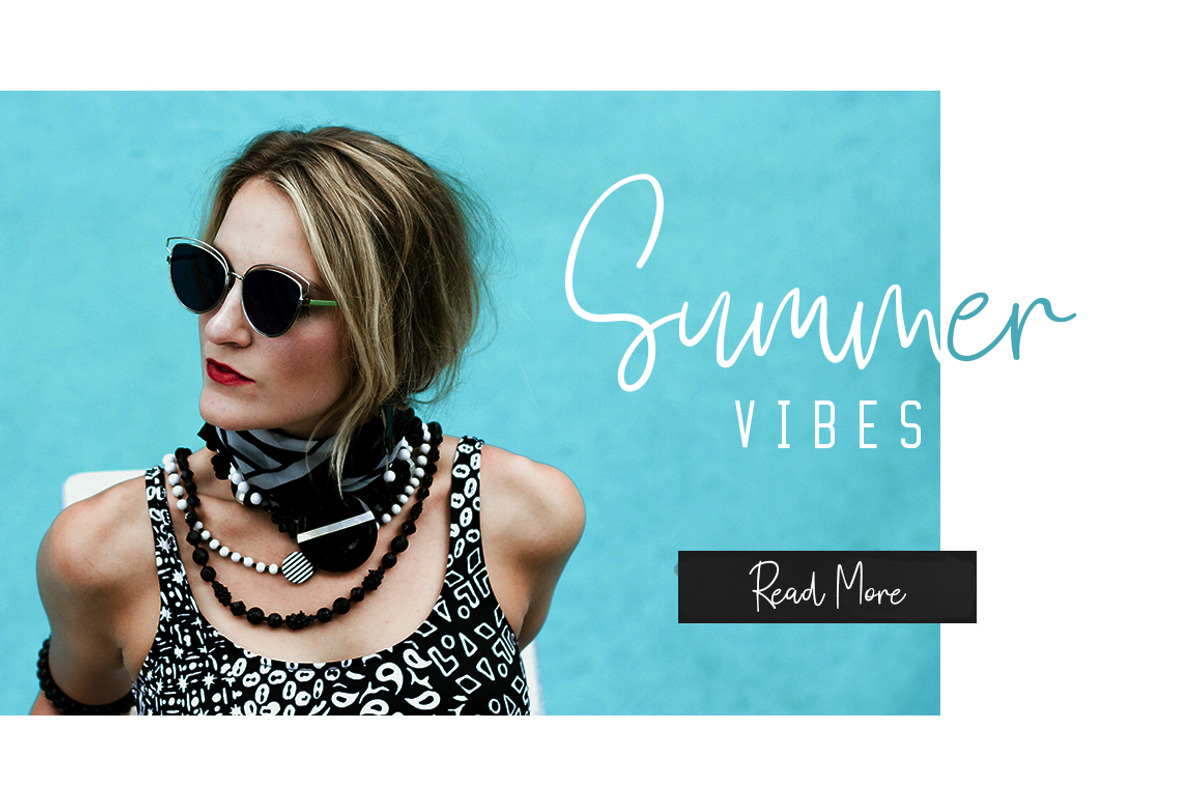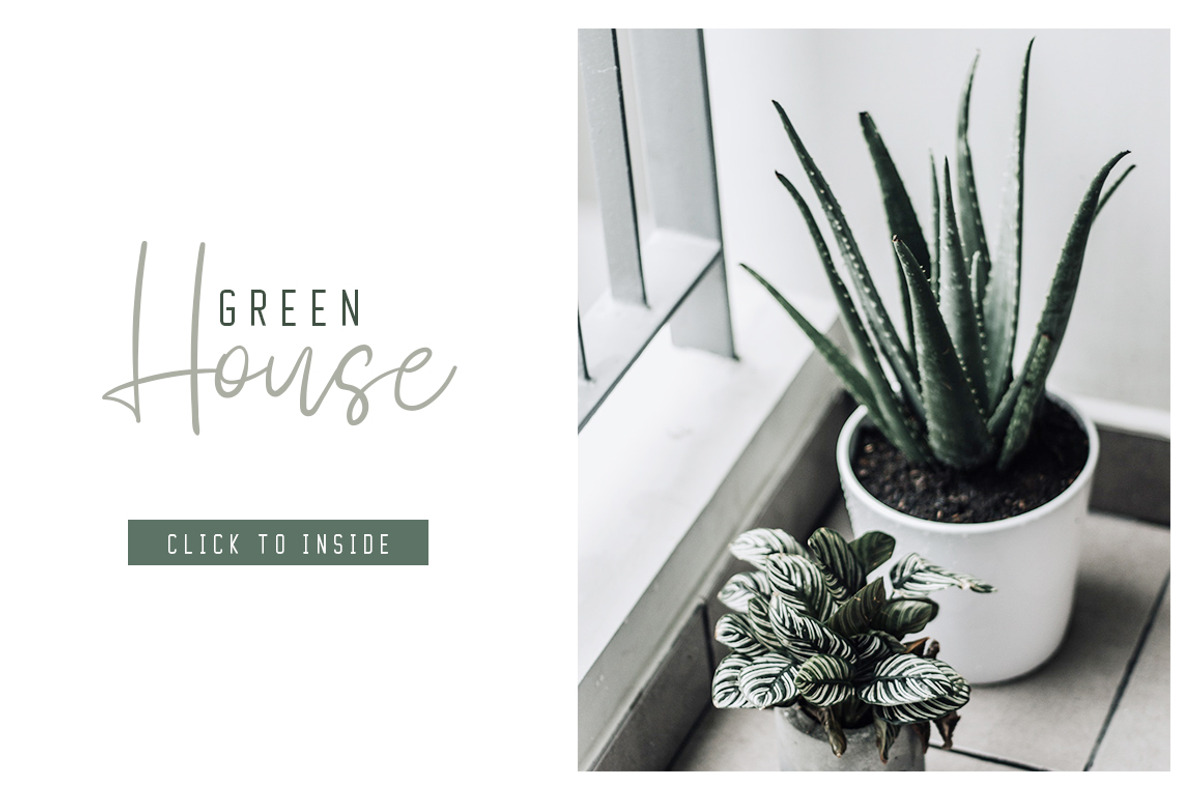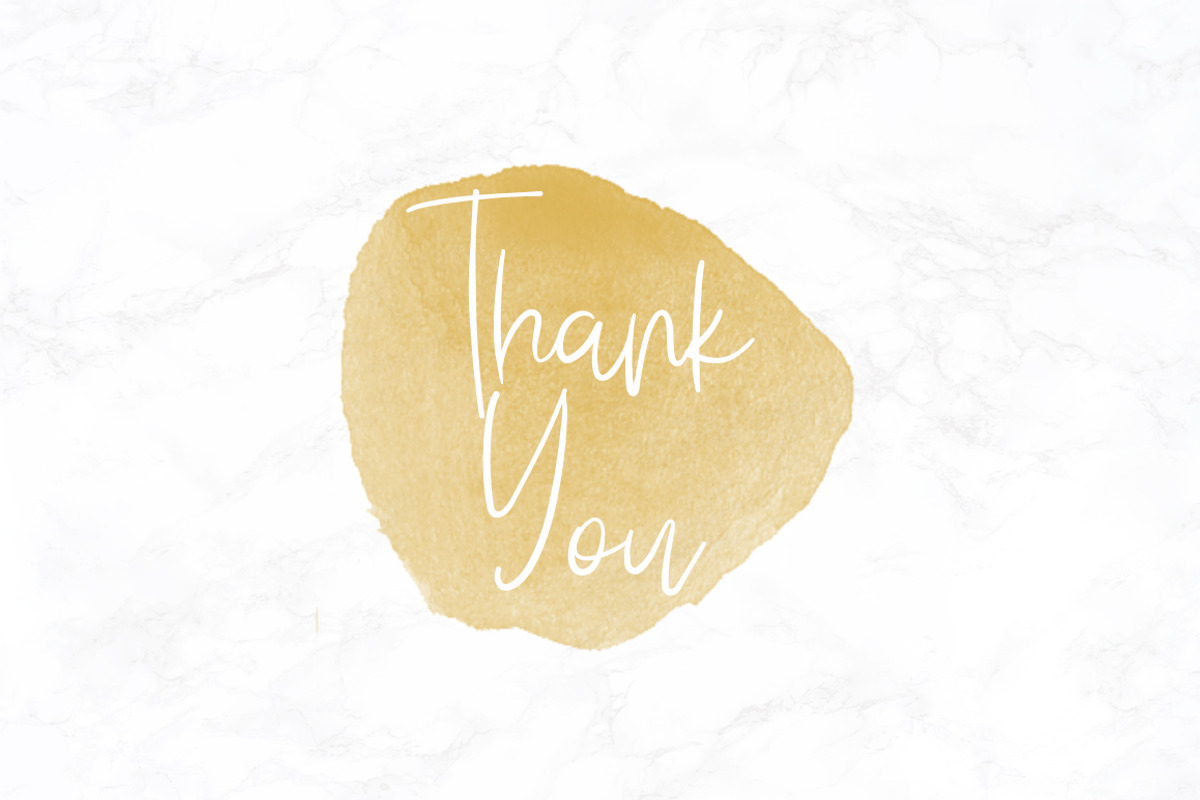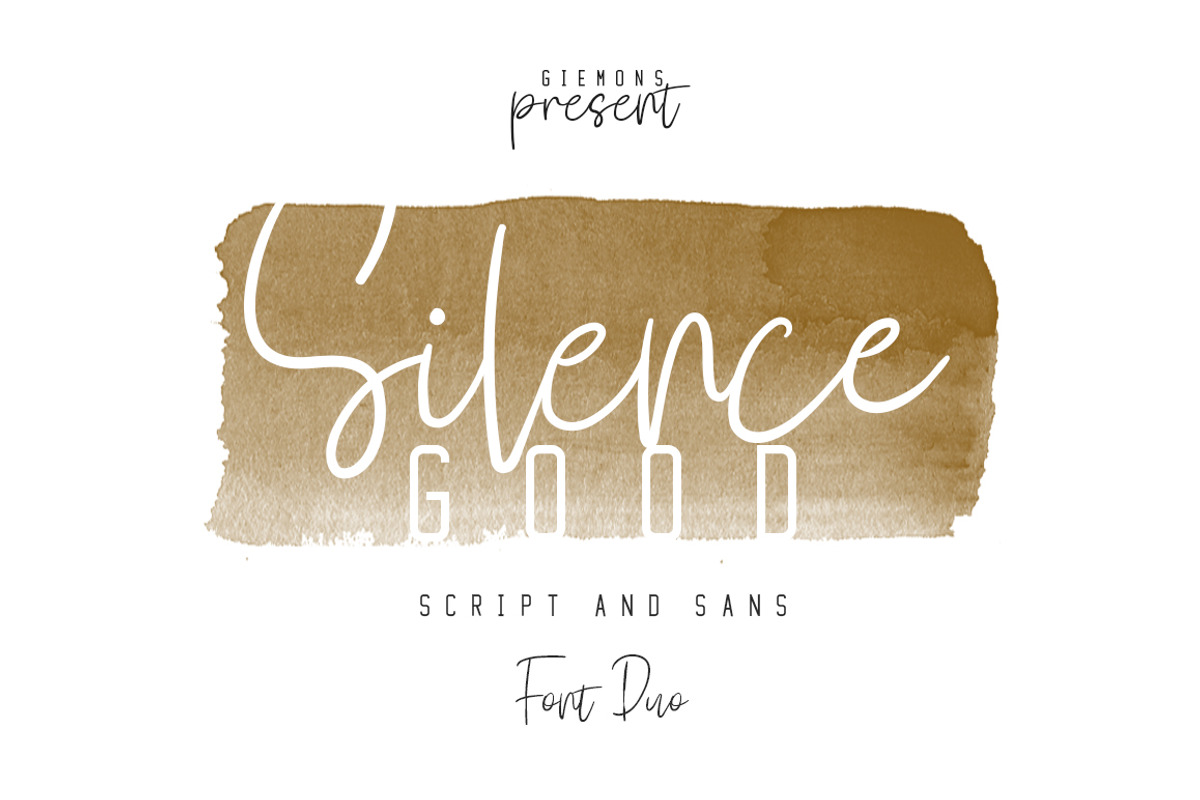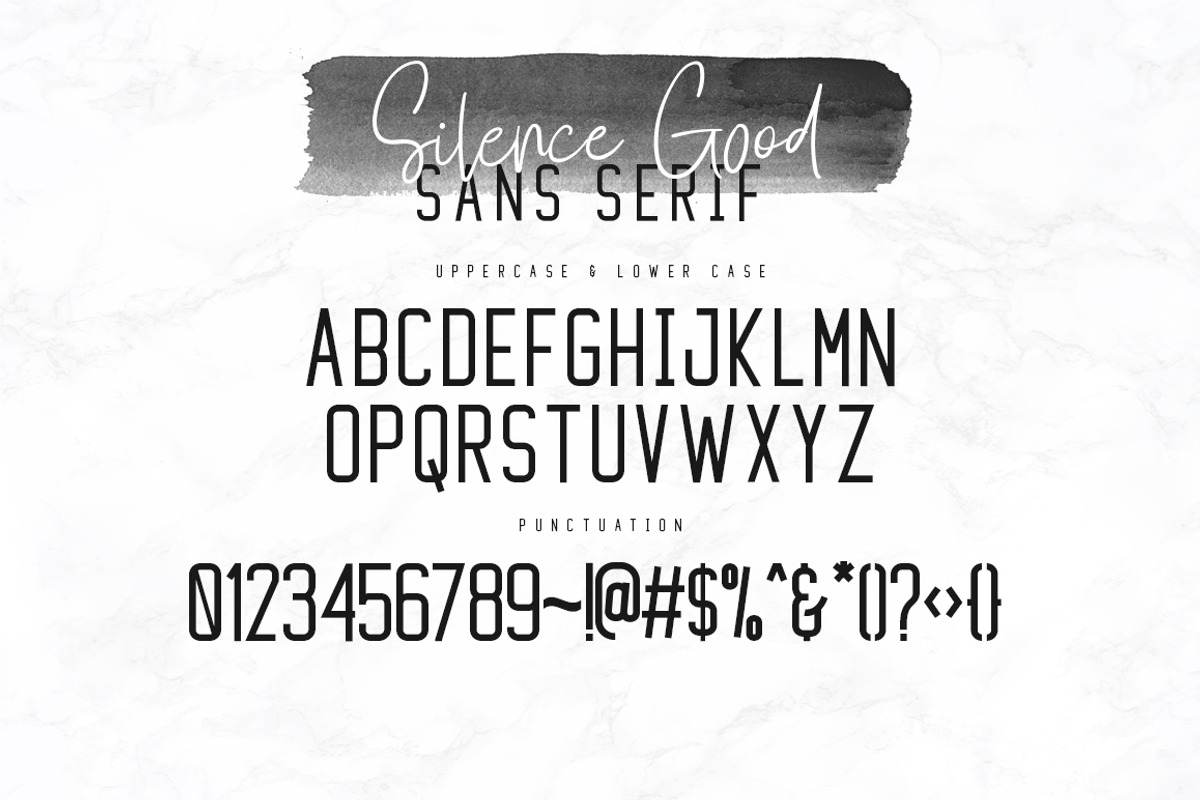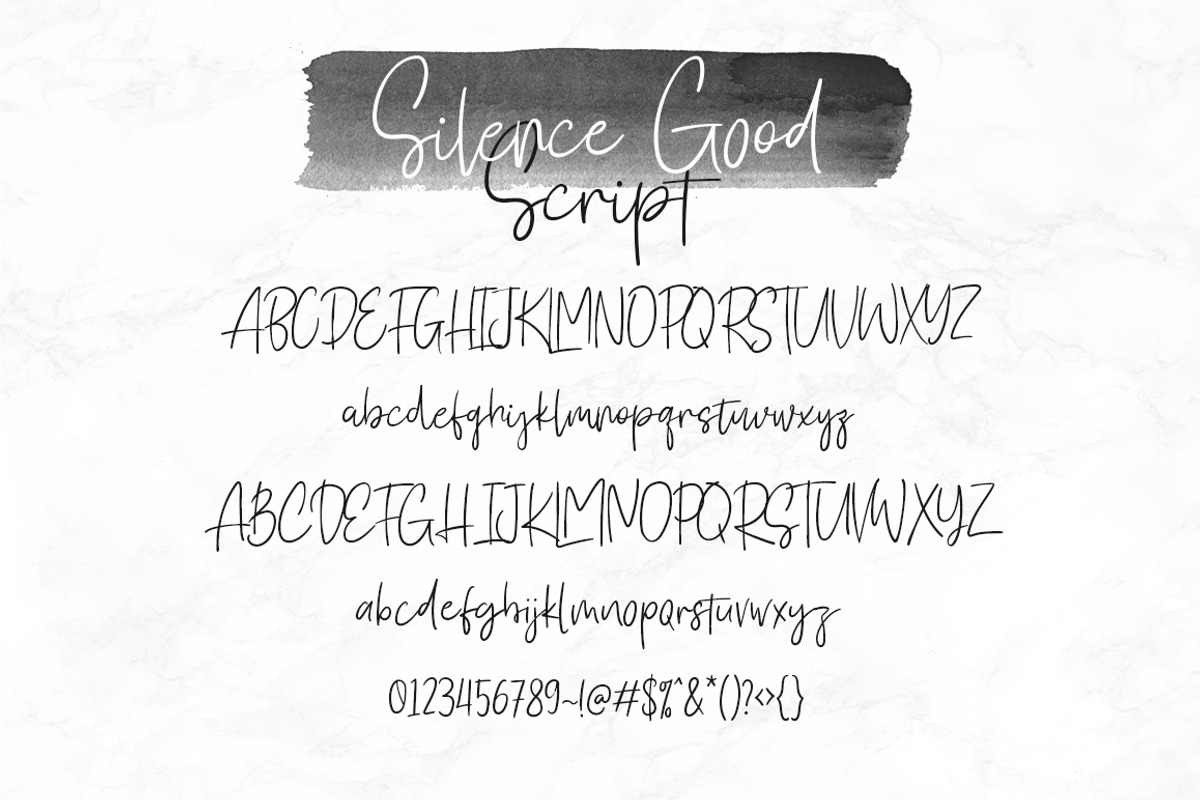
Silence Good - Font Duo!
a Silence Good Script and Sans is perfect font duo and also has good handwriting font style. Can make it easier to convey the message in your design. Use for awesome display, wedding, birthday, labeling, clothing, movie sceen, poster, movie title, gigs, album covers, logos, and much more.
Uppercases & Lowercases
Uppercases & Lowercases (all capslock)
- Silence Sans Regular
- Silence Script Regular